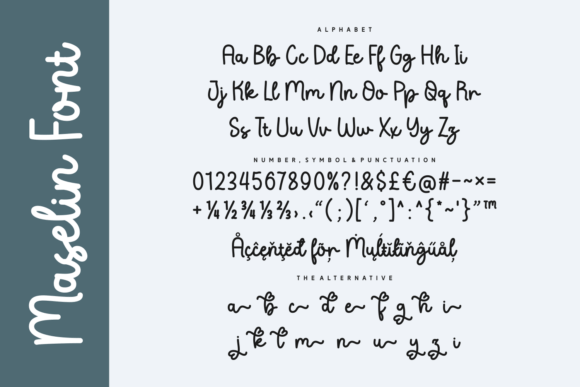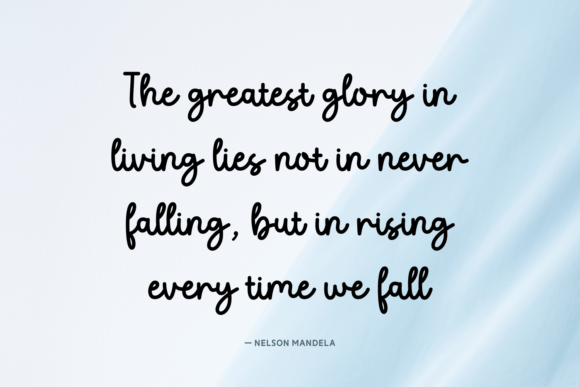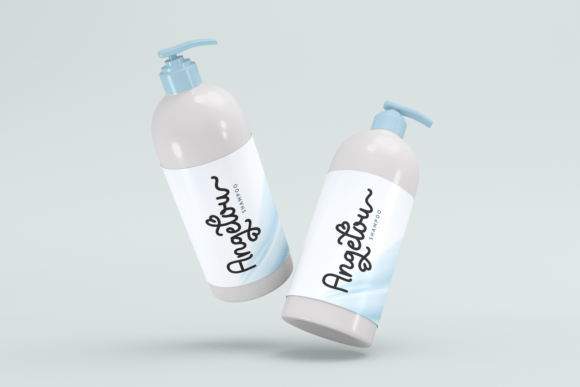
Introduction to Maselin Font
Maselin is a charming script font with a playful, handcrafted feel.
Its smooth curves and delightful heart detail create a friendly and approachable vibe, perfect for projects like invitations, logos, greeting cards, and social media graphics With its authentic calligraphy style, Maselin adds a personal, creative touch to any design.
Key Features of Maselin Font